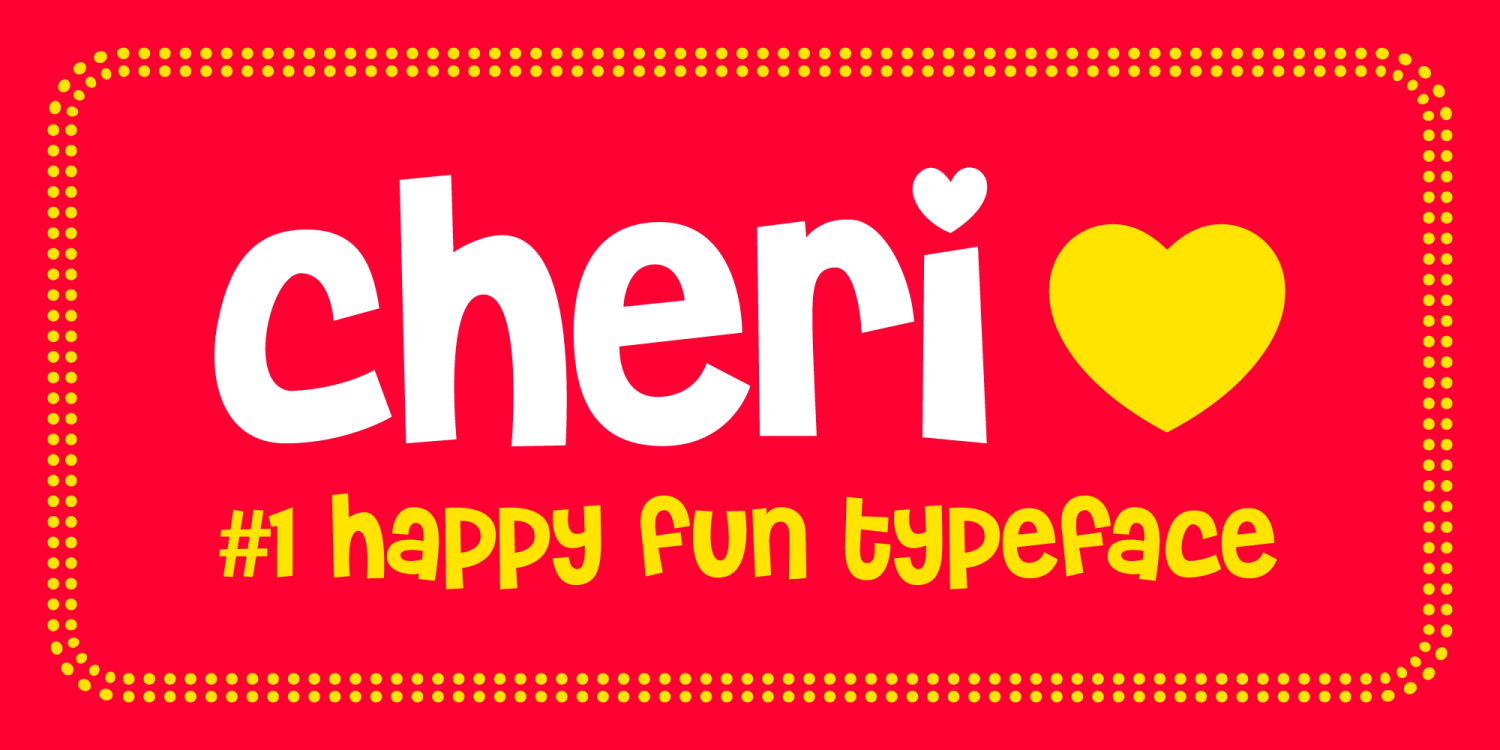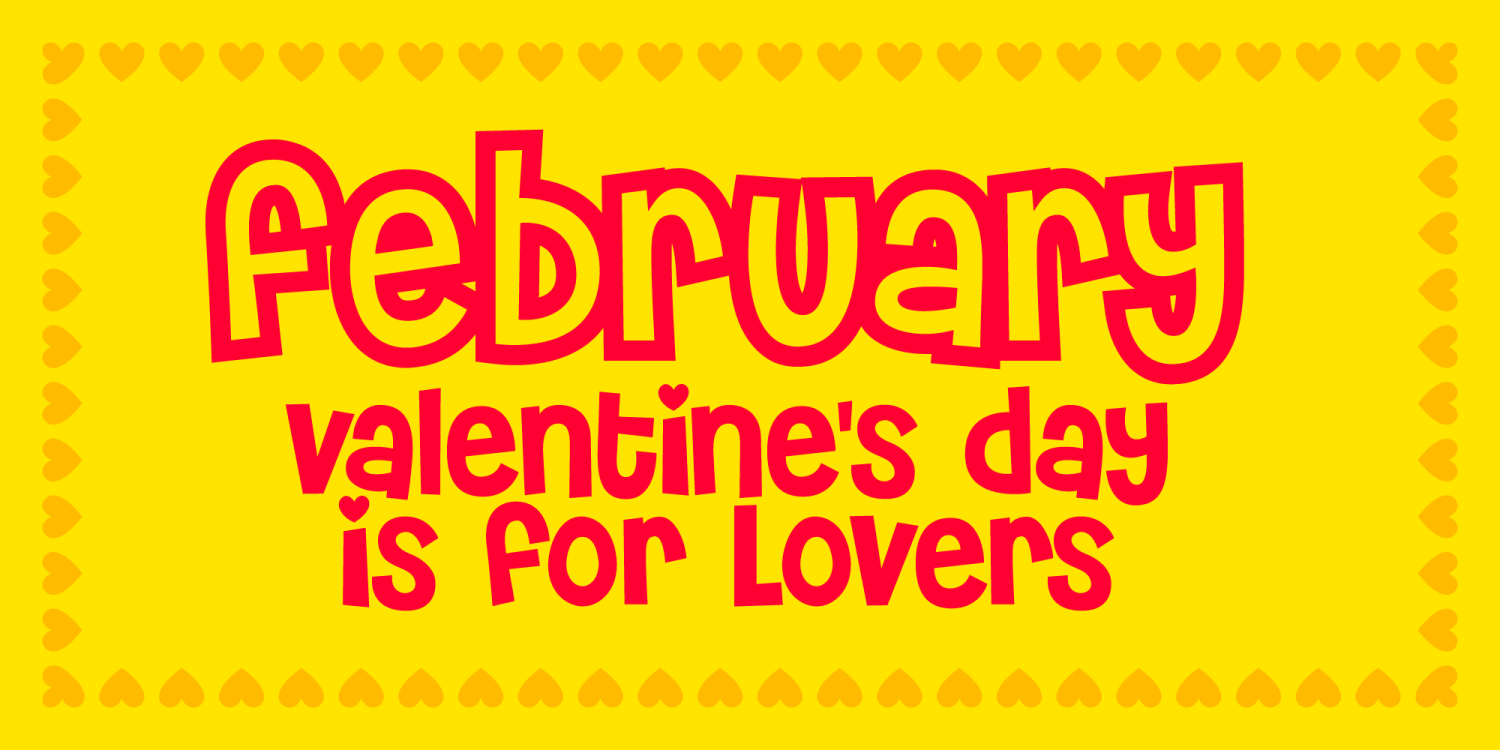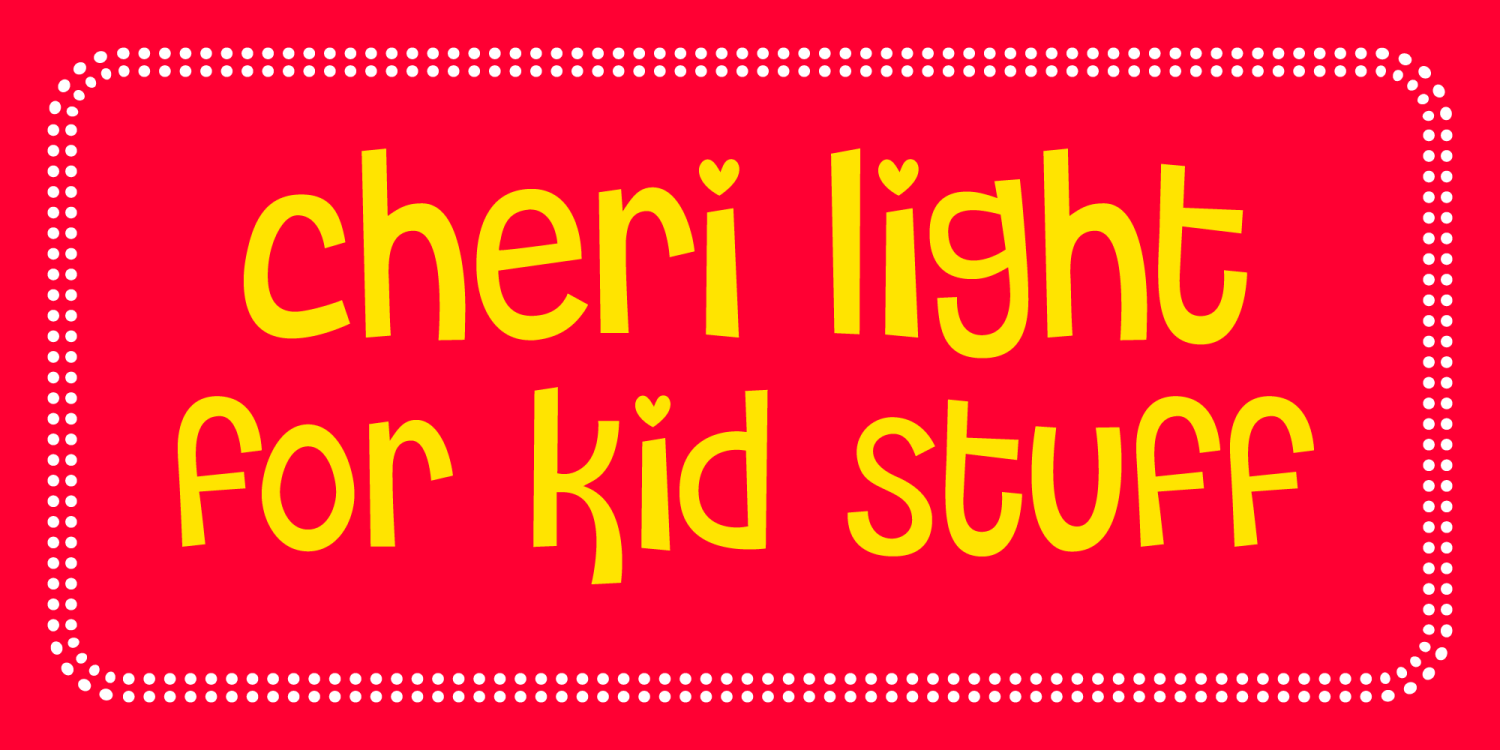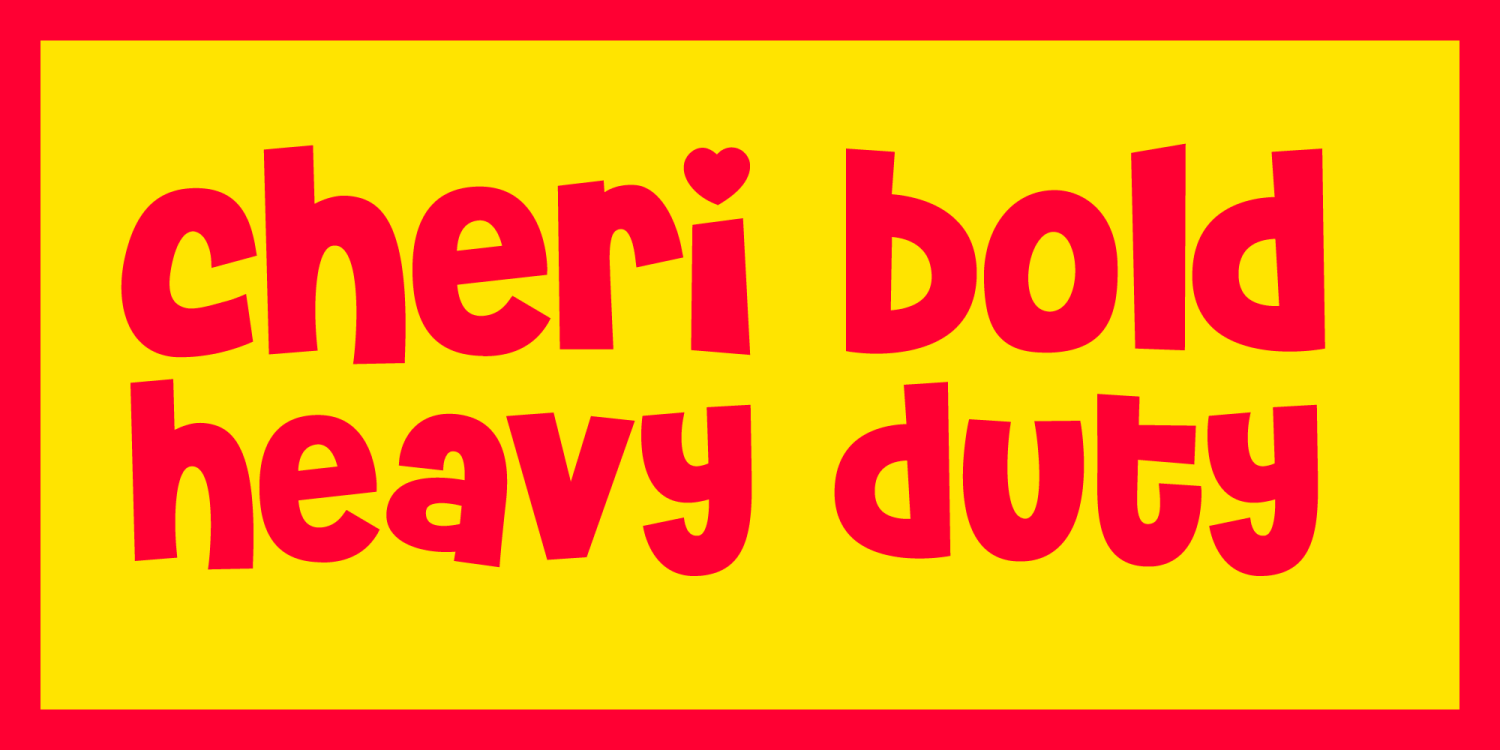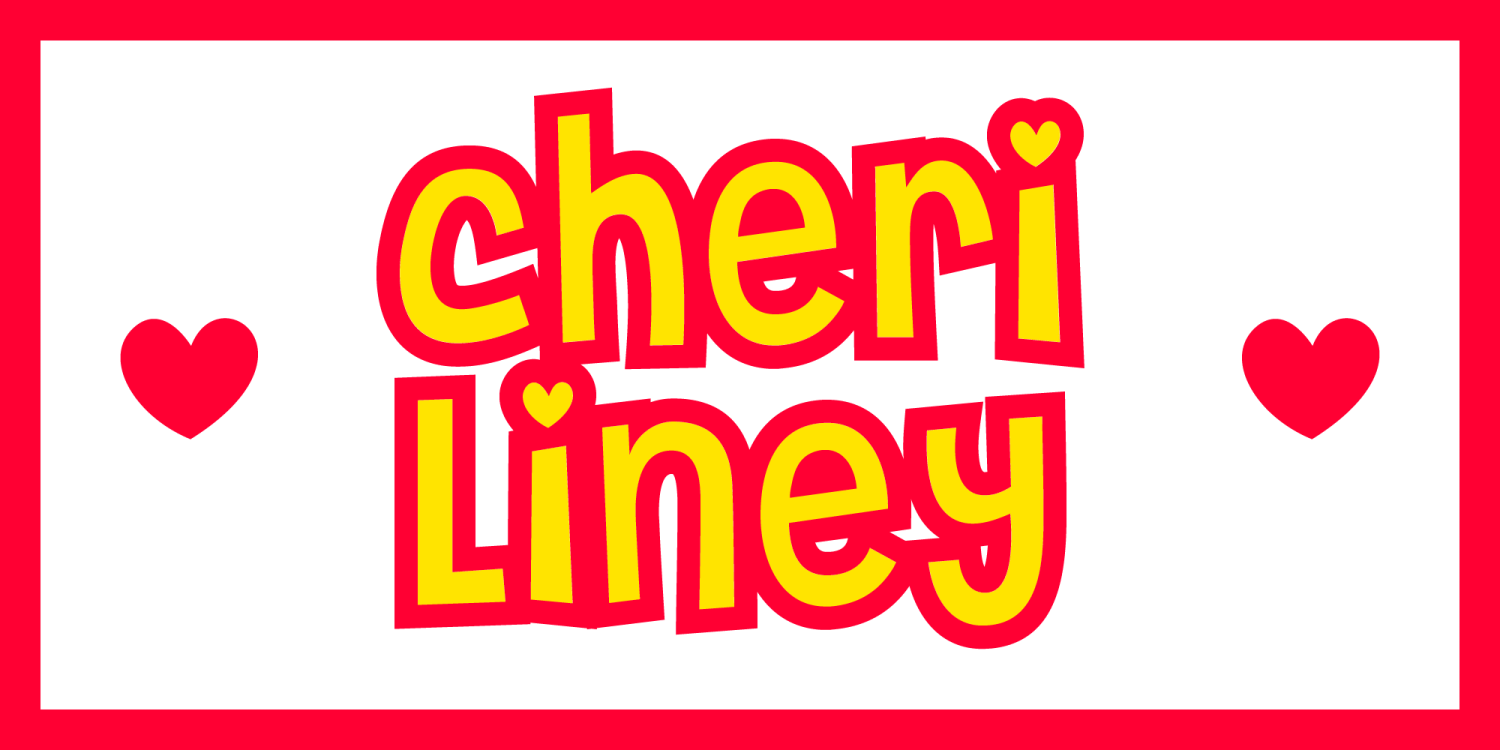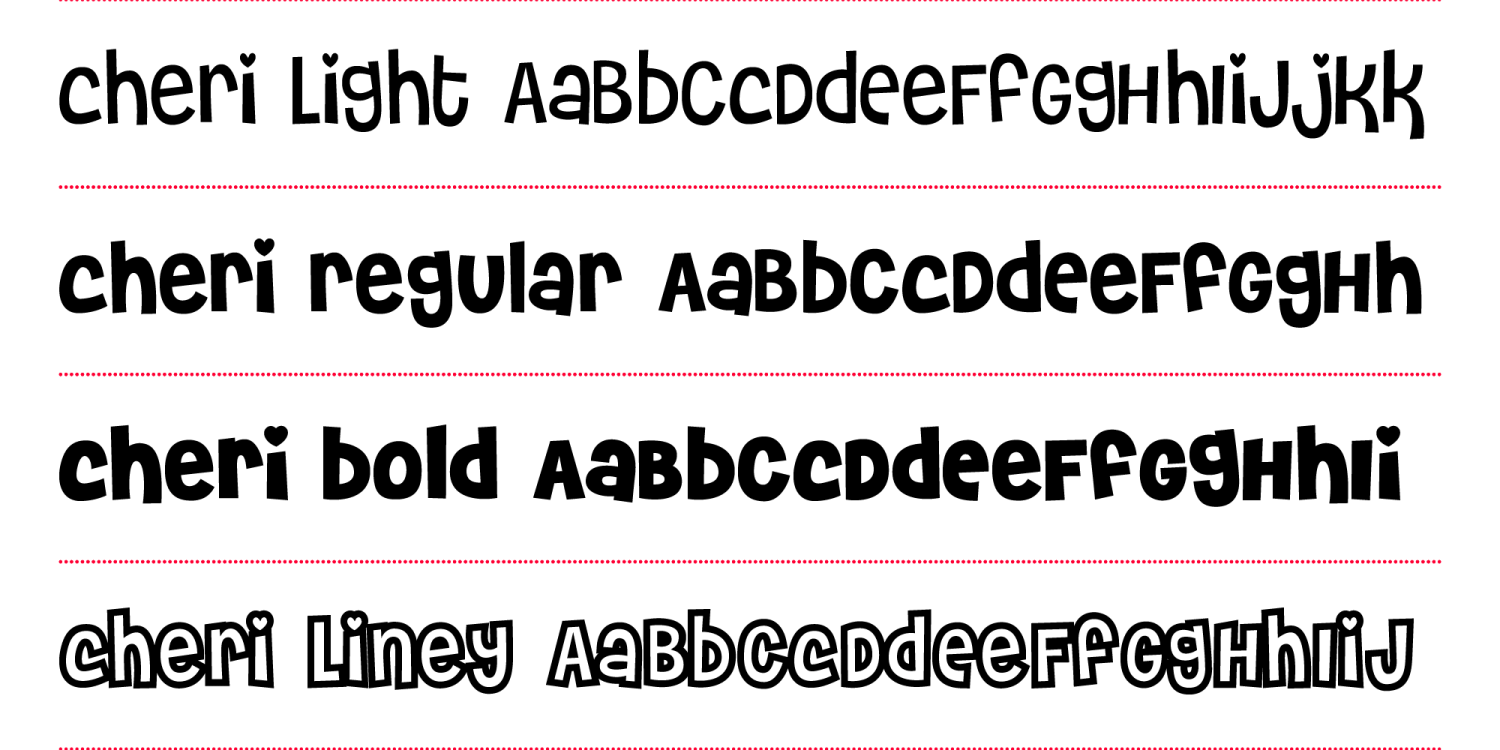
Introducing "Cheri," the font that wears its happiness on its sleeves, or rather, on its dots! This bubbly typeface is like a cheerful friend who sprinkles love and joy wherever it goes. Every "i" in Cheri comes adorned with a tiny heart, turning mundane text into a love-infused celebration. It's the font equivalent of a warm hug and a burst of confetti, making your words dance with delight. Let Cheri be your go-to choice when you want to add a dash of happiness and a sprinkle of love to your designs – because who says letters can't be cute and charming?